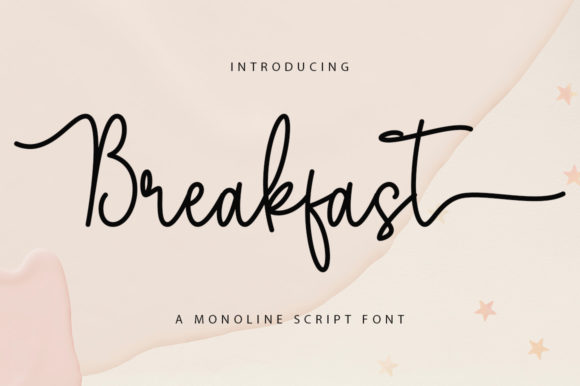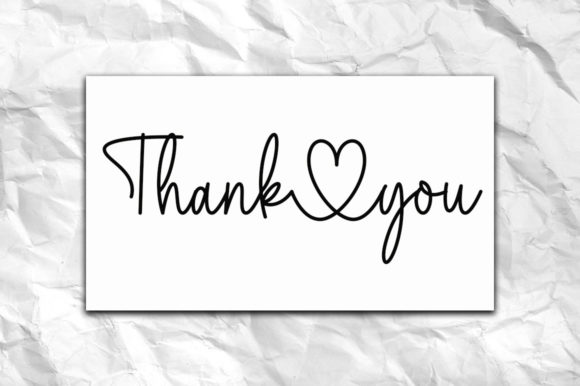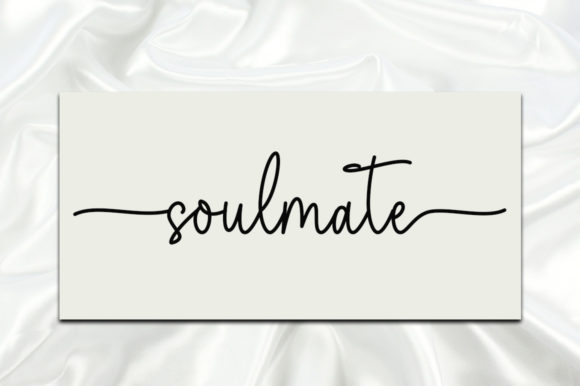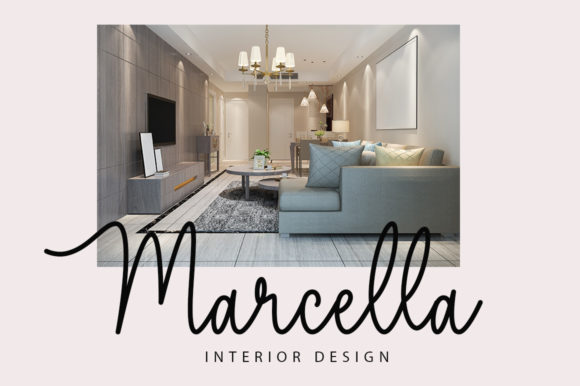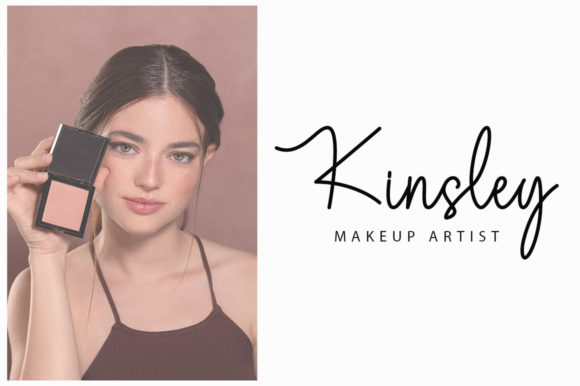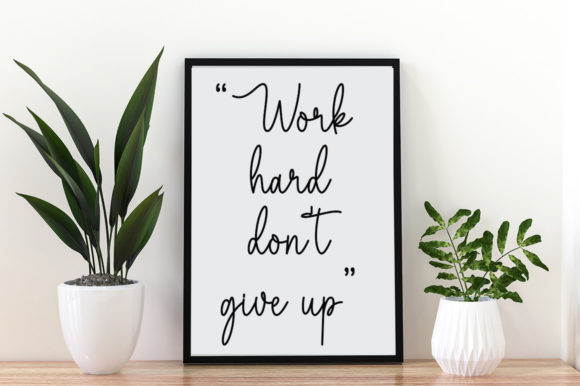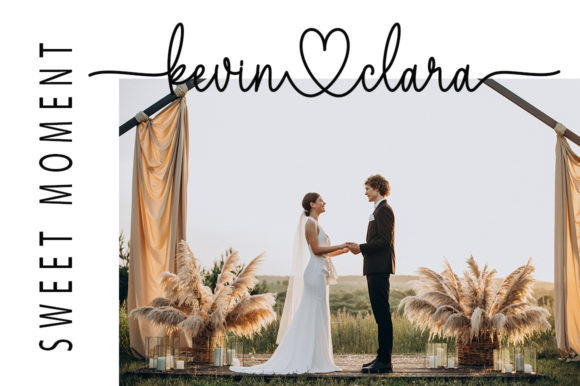
Breakfast Font
About Breakfast Font
Introducing Breakfast, an elegant script font meticulously crafted to strike the perfect balance between thin and thick strokes, providing a harmonious and varied aesthetic. This font is thoughtfully designed to elevate the beauty of your projects, adding a touch of sophistication and versatility. Additionally, Breakfast is PUA encoded, offering seamless access to an array of glyphs and swashes for effortless customization.
The elegance of Breakfast lies in its meticulous design, where each letter is carefully balanced to create a visually appealing and refined script. Its versatility makes it an ideal choice for a wide range of projects, from formal documents to creative endeavors that demand a touch of sophistication.
Whether you’re working on invitations, branding materials, or any design that requires an elegant script font, Breakfast is well-equipped to enhance your creative vision. Its not-too-thin and not-too-thick letterforms provide a nuanced and graceful appearance, ensuring a delightful visual experience for your audience.
The PUA encoding feature of Breakfast further enhances its user-friendly nature, allowing you to effortlessly access a plethora of glyphs and swashes. This capability empowers you to personalize and tailor the font to suit the unique requirements of your projects.
In essence, Breakfast is not just a font; it’s a design tool crafted to enhance and beautify. Embrace the elegance and versatility it brings to your projects, as it effortlessly becomes an integral part of your creative toolkit, offering a perfect blend of sophistication and variety.